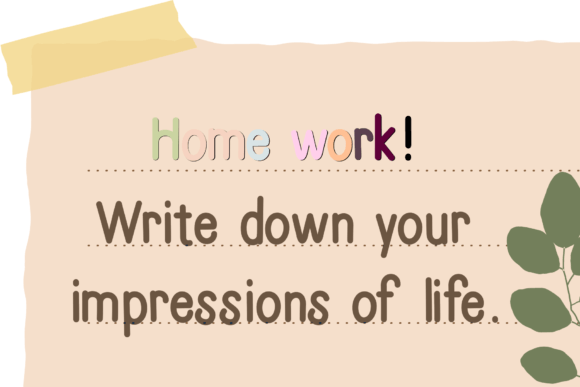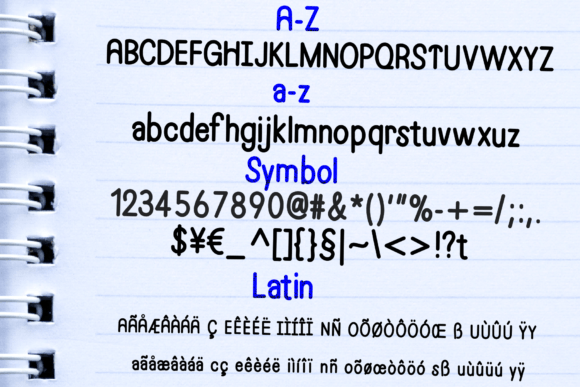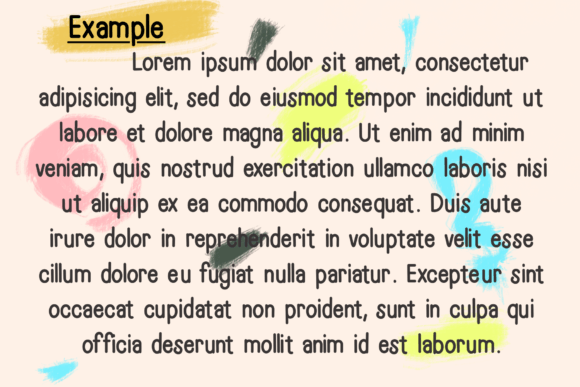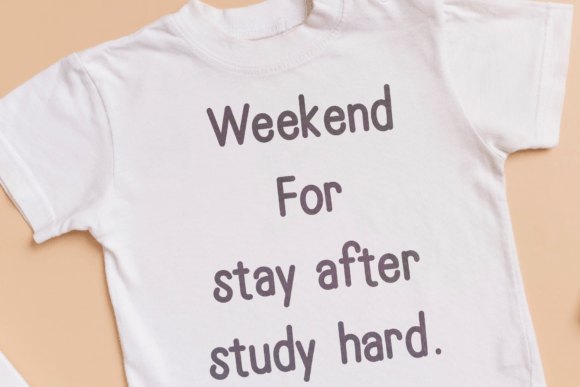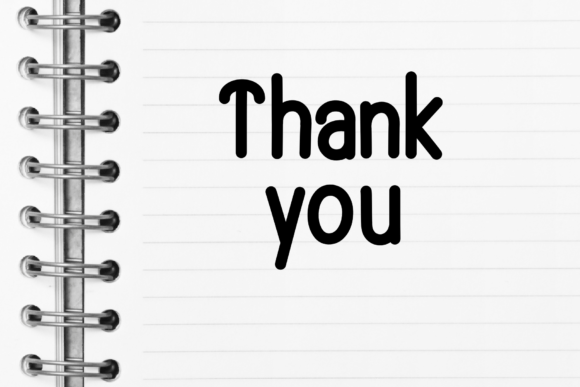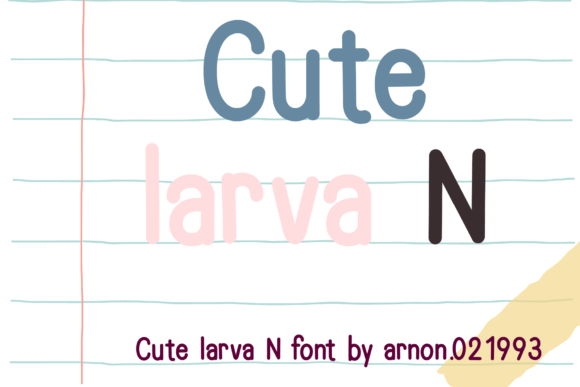
Cute Larva N Font: The Sweet and Friendly Handwritten Font for Your Designs
Are you a designer or crafter looking for a font that can add a touch of sweetness and friendliness to your projects? Look no further than Cute Larva N Font! This beautiful handwritten font is perfect for a wide range of designs, from digital art to craft projects, and is sure to bring a smile to your audience’s faces.
What Makes Cute Larva N Font So Special?
Cute Larva N Font is a unique and natural handwritten font that stands out from the crowd. Its sweet and friendly style makes it incredibly fitting for a large pool of designs, from playful and whimsical to elegant and sophisticated. The font’s natural flow and imperfections give it a charming, handmade feel that’s perfect for adding a personal touch to your projects.
One of the best things about Cute Larva N Font is its versatility. Whether you’re creating digital art, crafting signs or cards, or designing packaging, this font is sure to be a great fit. Its only limit is your imagination! With Cute Larva N Font, you can create a wide range of designs that are sure to delight your audience.
Characteristics of Cute Larva N Font
Cute Larva N Font has several characteristics that make it a standout font. Some of its key features include:
- Handwritten style: Cute Larva N Font is a beautiful handwritten font that adds a personal touch to any design.
- Natural and unique: The font’s natural flow and imperfections give it a charming, handmade feel.
- Sweet and friendly: Cute Larva N Font is perfect for designs that require a touch of sweetness and friendliness.
- Versatile: This font is suitable for a wide range of designs, from digital art to craft projects.
Uses for Cute Larva N Font
Cute Larva N Font is a versatile font that can be used for a wide range of projects. Here are some ideas to get you started:
- Digital art: Use Cute Larva N Font to add a personal touch to your digital art, from illustrations to graphic designs.
- Craft projects: This font is perfect for craft projects, such as card making, scrapbooking, and DIY signs.
- Packaging design: Add a touch of sweetness and friendliness to your packaging with Cute Larva N Font.
- Social media graphics: Use this font to create eye-catching social media graphics that are sure to delight your audience.
Tips for Using Cute Larva N Font
Here are some tips for getting the most out of Cute Larva N Font:
- Experiment with different colors: Cute Larva N Font looks great in a variety of colors, so don’t be afraid to experiment and find the perfect hue for your design.
- Play with font sizes: This font looks great in a range of sizes, from small and delicate to large and bold.
- Combine with other fonts: Cute Larva N Font pairs well with other fonts, so feel free to get creative and combine it with your favorite fonts.
Cute Larva N Font is a sweet and friendly handwritten font that’s perfect for designers and crafters. Its natural and unique style makes it incredibly fitting for a wide range of designs, and its versatility is limited only by your imagination. Whether you’re creating digital art, crafting signs or cards, or designing packaging, Cute Larva N Font is sure to be a great fit. So why wait? Download Cute Larva N Font today and start creating your own sweet and friendly designs!